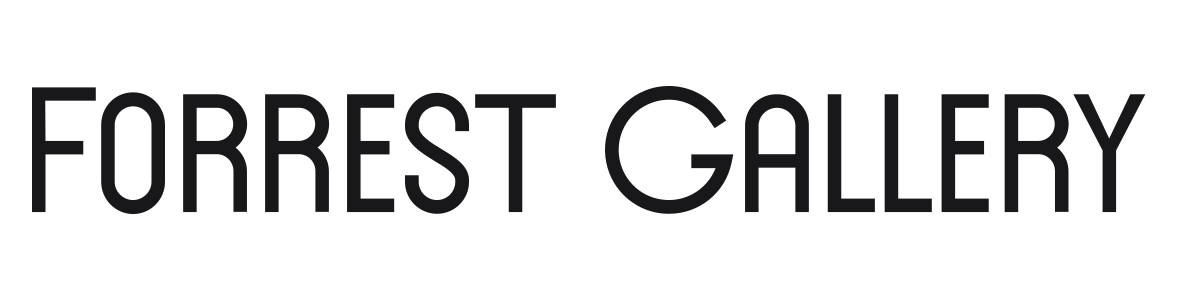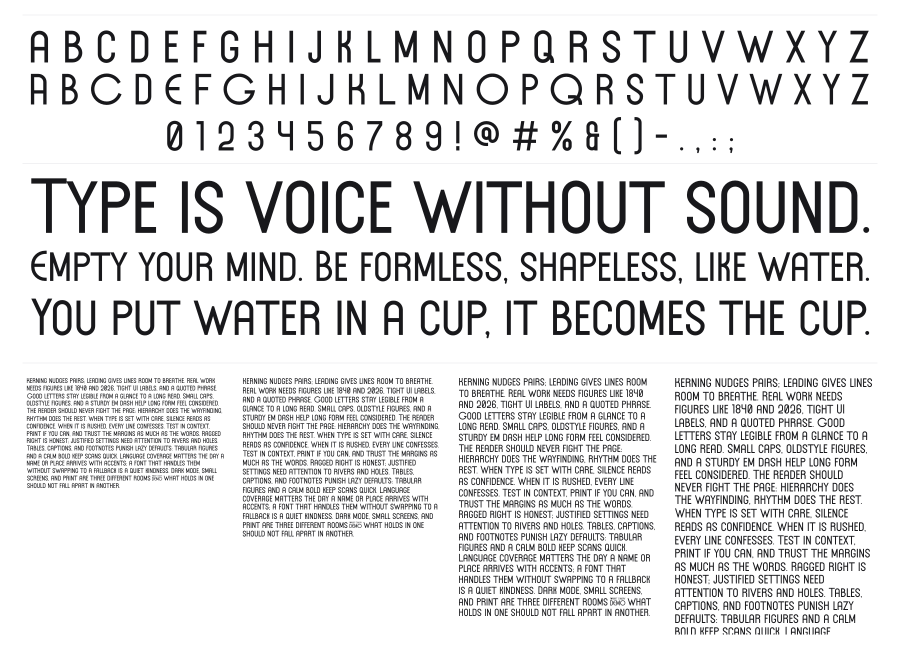
Forrest Gallery
Forrest Gallery is a geometric sans-serif with subtly softened terminals and generous spacing that give it a restrained, curatorial quality. The near-monoweight strokes and wide tracking read naturally at large sizes without feeling cold or mechanical. It gravitates toward art, fashion, and editorial contexts where understatement carries weight.